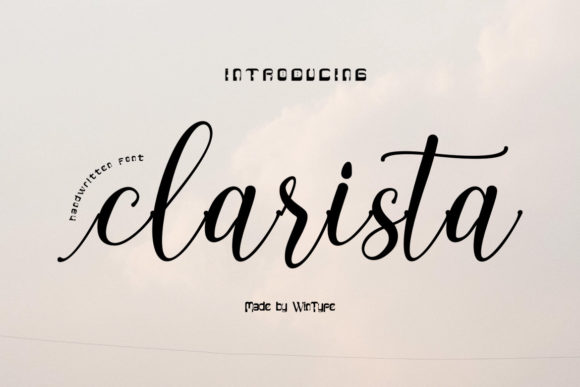
Welcome, font enthusiasts, and music enthusiasts alike! Embark on a captivating journey into the realm of Clarista Font, a script font that will ignite your creativity and transform your designs into mesmerizing masterpieces. Allow the enchanting strokes of Clarista to serenade your senses as you explore its boundless possibilities.
Clarista Font: The Maestro of Musical Expression
Clarista Font is the epitome of elegance and sophistication, seamlessly capturing the essence of musical harmony. With its graceful curves and sweeping lines, Clarista dances across your screen like a symphony of letters, each character a note in a grand musical composition. Whether you're designing posters for concerts or creating logos for music brands, Clarista is the perfect conductor to orchestrate your visual masterpiece.
Unlock a Symphony of Design Possibilities
Unleash the full potential of Clarista Font and immerse yourself in a world of endless design opportunities. From album covers that echo the rhythm of your favorite melodies to social media posts that resonate with captivating messages, Clarista is your versatile companion in the world of visual communication. Its charming personality shines through in every application, adding a touch of magic to your creative endeavors.
Express Yourself with Every Stroke
Clarista Font is not just a collection of characters; it's an extension of your creative spirit. With its comprehensive range of glyphs and swashes, Clarista empowers you to express yourself with every stroke. Create breathtaking invitations that evoke a sense of timeless elegance or design headers that command attention with their bold and dynamic presence. Clarista is a versatile performer, ready to adapt to your every whim and fancy.
Experience the Simplicity of Brilliance
Clarista Font is a testament to the adage that simplicity is the ultimate sophistication. Its intuitive design makes it a joy to use, even for those who are new to the world of typography. With Clarista as your trusted companion, you can effortlessly craft designs that resonate with your audience, leaving a lasting impression that will echo through the corridors of their memory.